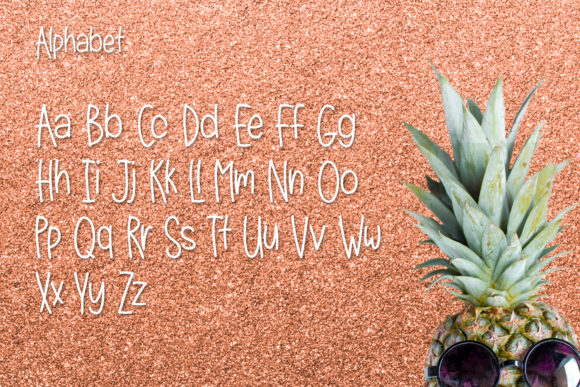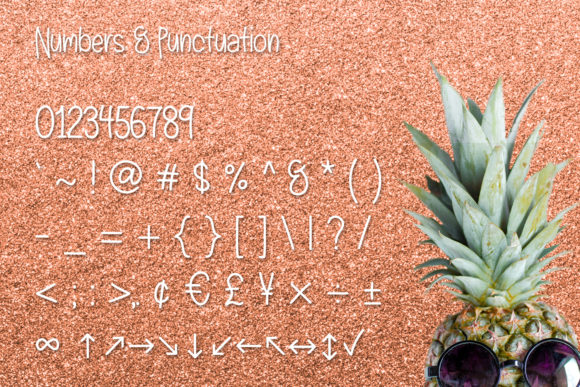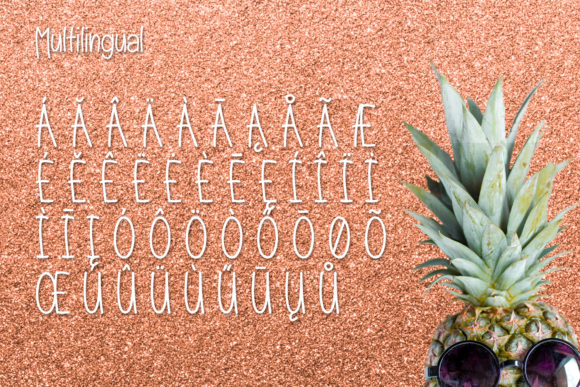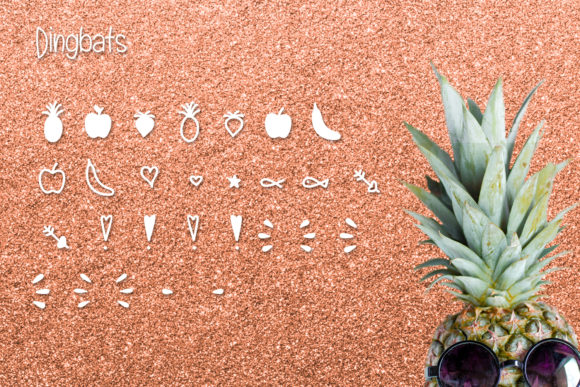
Introduction to Lazy Pineapple Font
Lazy Pineapple is a fun handwritten font with a wonderful selection of dingbats, included in PUA.
Key Features of Lazy Pineapple Font